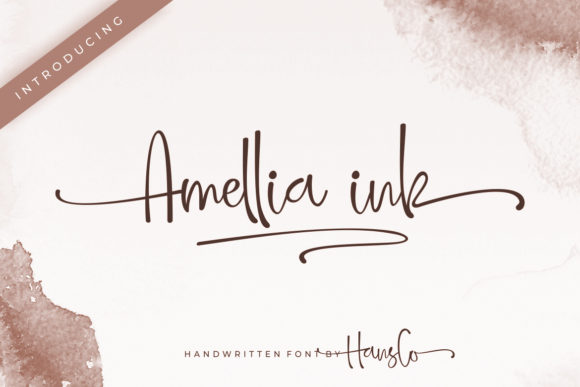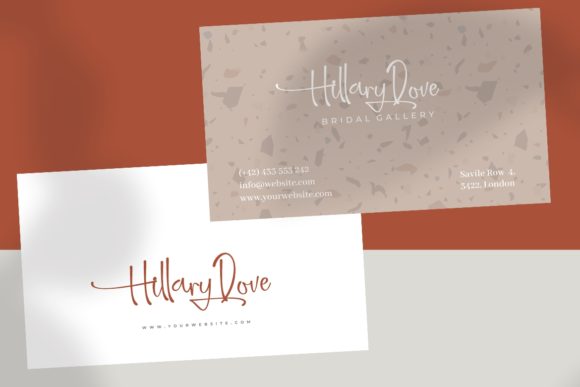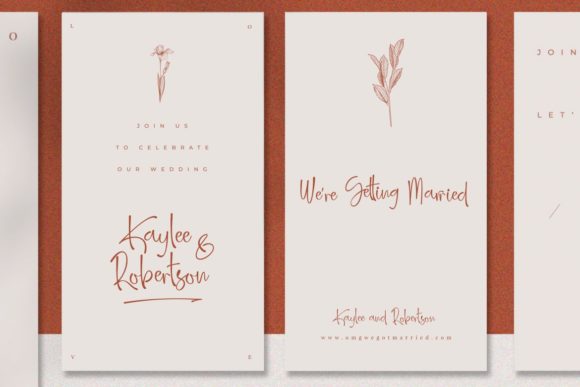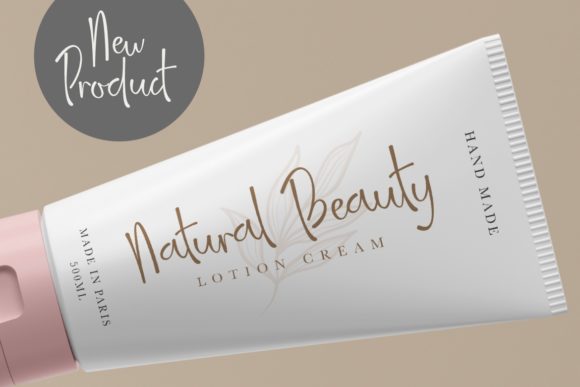
Amellia Ink Font
About the Amellia Ink Font
Presenting Amellia Ink Font, a unique and stylish typeface that will make your work stand out. Amellia Ink is a beautiful, elegant and natural handwritten font. This font is perfect for creating logos, watermarks, branding, wedding invitations, quotes, or anything else you wish to design. This font is PUA encoded which means you can access all of the glyphs and swashes with ease!
Amellia Ink’s elegant, natural style is ideal for projects requiring a touch of handwritten charm, such as logos, branding materials, wedding stationery, and short quotes. It excels in headlines and short text blocks where its individual character shines. However, its less-than-optimal legibility makes it unsuitable for body copy or UI elements requiring extended reading.
The font’s overall personality is sophisticated and romantic, lending itself to brands focused on luxury, beauty, or handcrafted goods. Its refined strokes communicate quality and attention to detail.
Amellia Ink Font Usage Examples
Amellia Ink Font Example